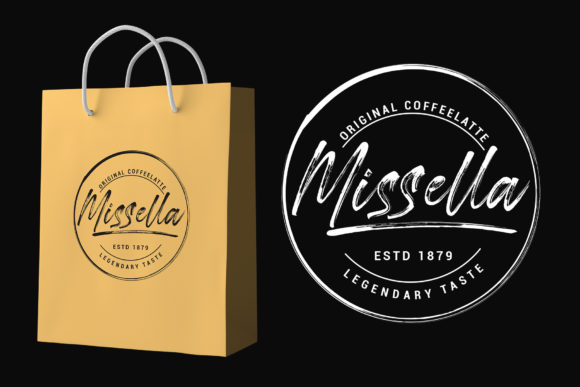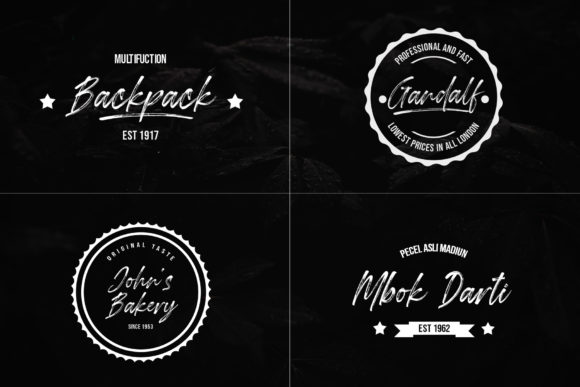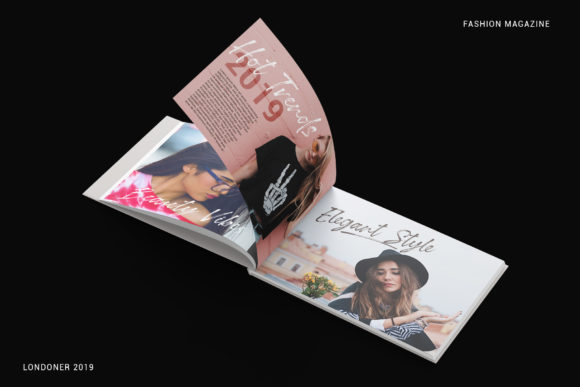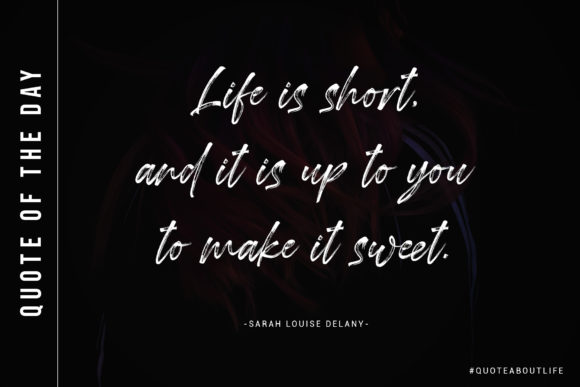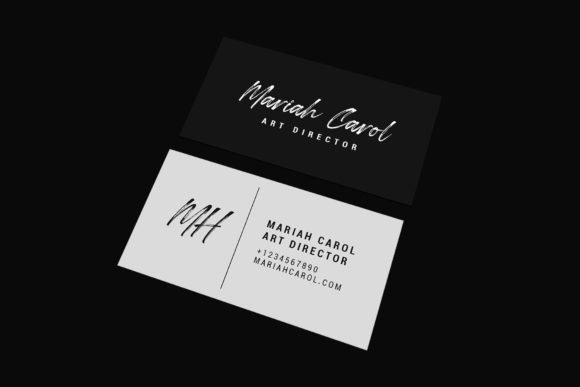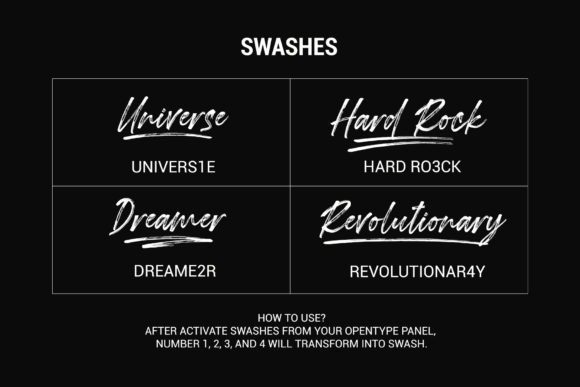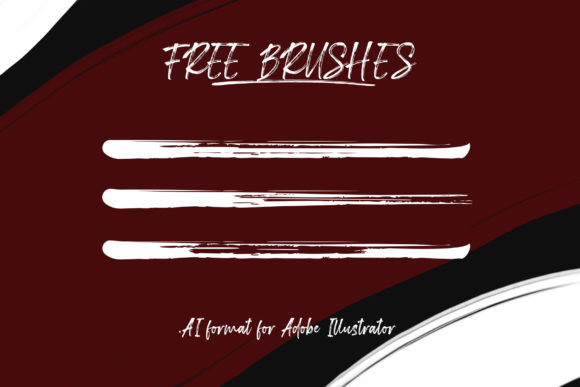
Londoner Font
About Londoner Font
Londoner is a beautiful and modern handwritten font with lots of charm. It will add a unique spark to any design project.